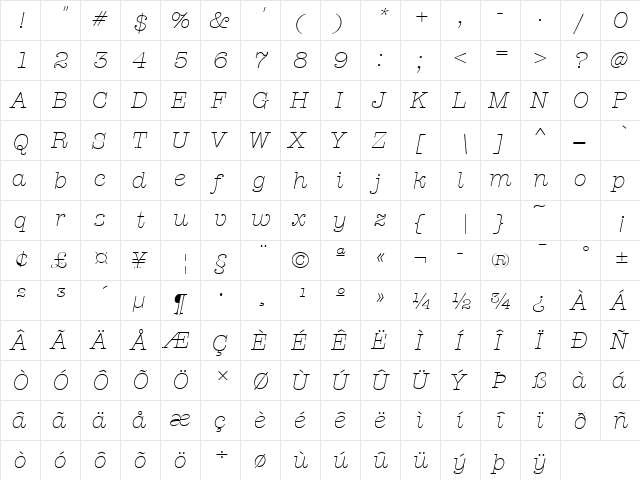
TypewriterL Italic
Design Context for TypewriterL Typeface
TypewriterL uses fixed-width spacing throughout, giving it the structured, systematic character associated with coding environments and technical documentation. The slanted form adds forward momentum and visual energy.